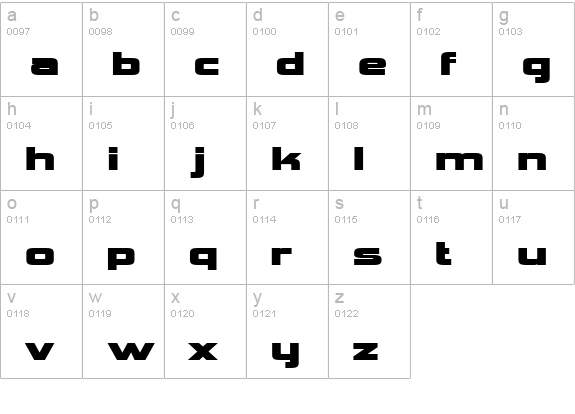
Vipnagorgialla Font Details
Introducing the stunning Vipnagorgialla font, a true masterpiece in the world of typography. This font is a perfect blend of elegance, creativity, and uniqueness, making it the ideal choice for any design project that aims to leave a lasting impression. Vipnagorgialla font features a captivating combination of bold and intricate letterforms, each meticulously crafted to perfection. Its sleek and modern appearance exudes confidence and sophistication, making it a versatile font suitable for a wide range of applications, including branding, advertising, packaging, logos, headlines, and more. What sets Vipnagorgialla font apart from the rest is not only its impeccable design but also its accessibility. It is freely available to download at FontsMarket.com, ensuring that designers, creatives, and enthusiasts alike can easily access this remarkable font and bring their visions to life. Whether you're designing a professional website, creating eye-catching social media posts, or crafting a memorable business card, Vipnagorgialla font will effortlessly elevate your designs to new heights. Its fluid curves and clean lines provide a sense of harmony and balance, while its extensive character set allows for endless possibilities and customization. In addition to its aesthetic appeal, Vipnagorgialla font also boasts excellent legibility, ensuring that your message is effortlessly conveyed to your audience. Its versatility allows it to adapt to various design styles and themes, from minimalistic and modern to bold and expressive. With Vipnagorgialla font, you have the freedom to unleash your creativity and create truly captivating designs. So why wait? Download this exceptional font today at FontsMarket.com and embark on a journey of boundless creativity.